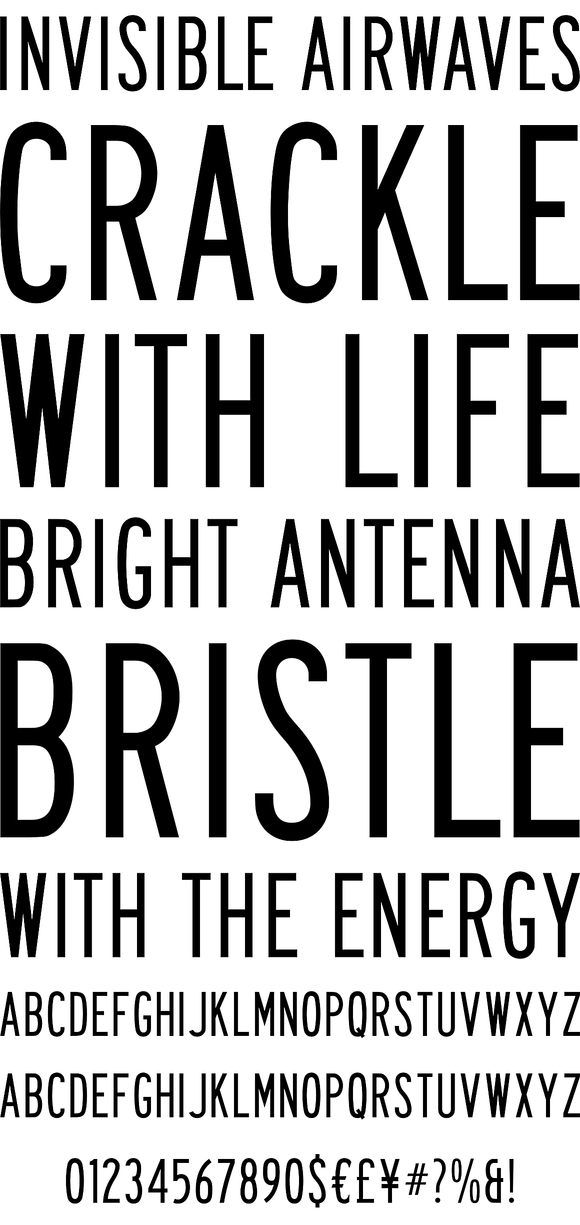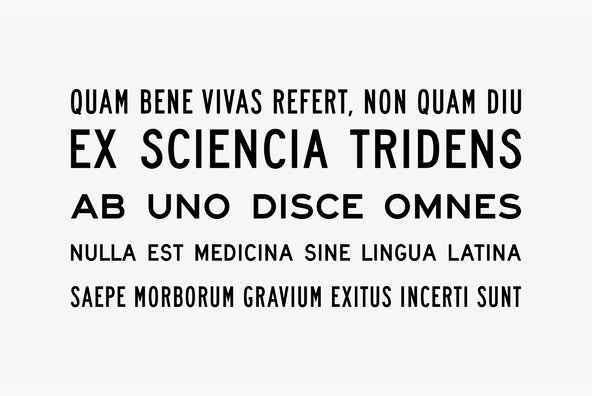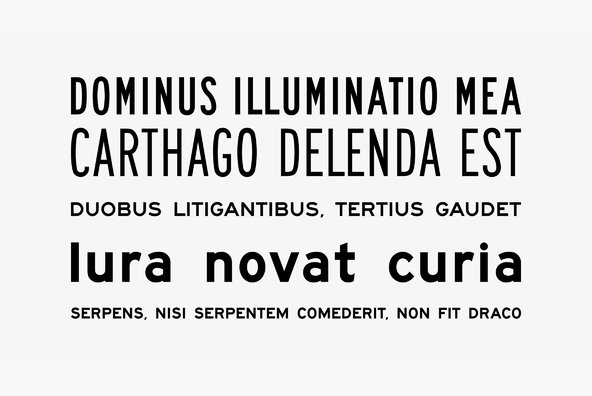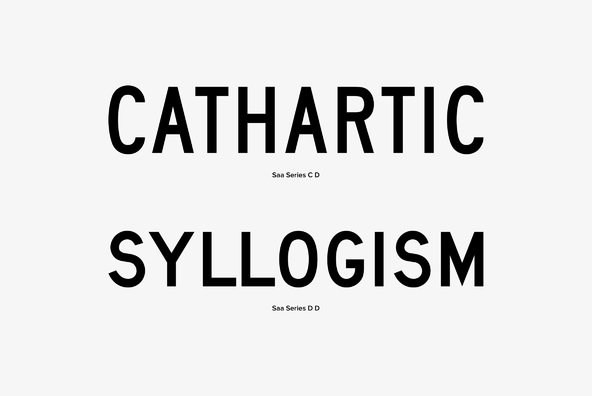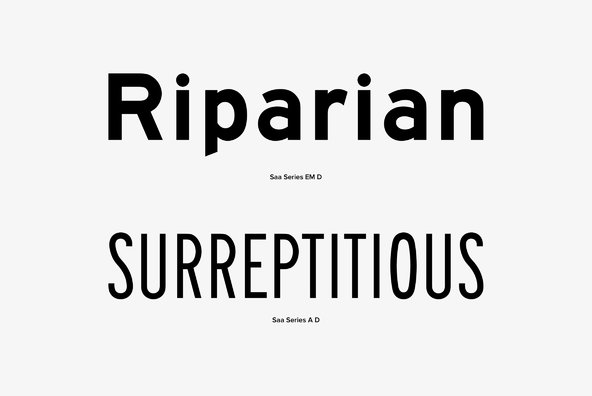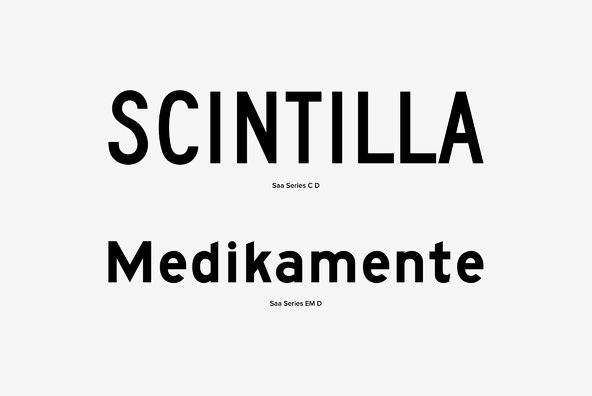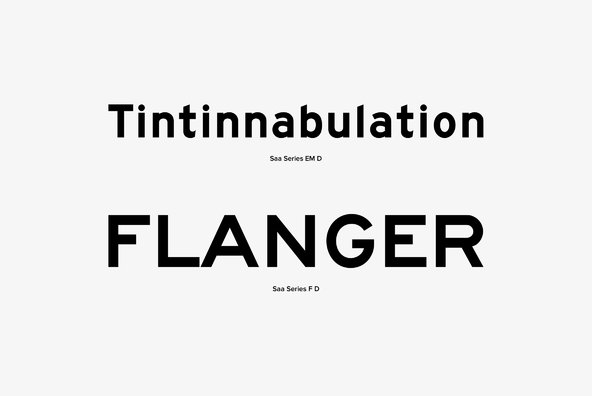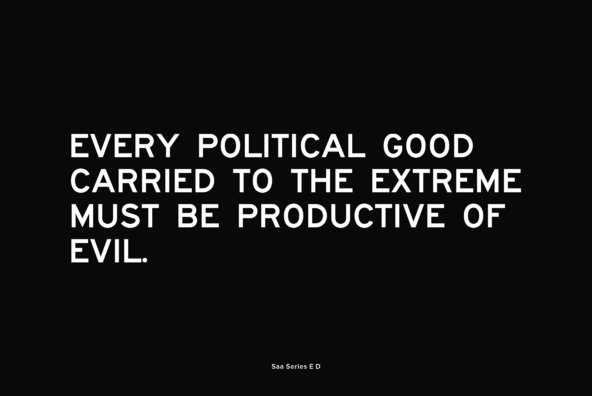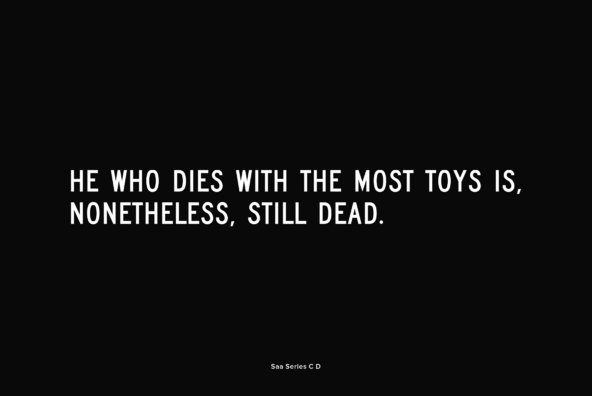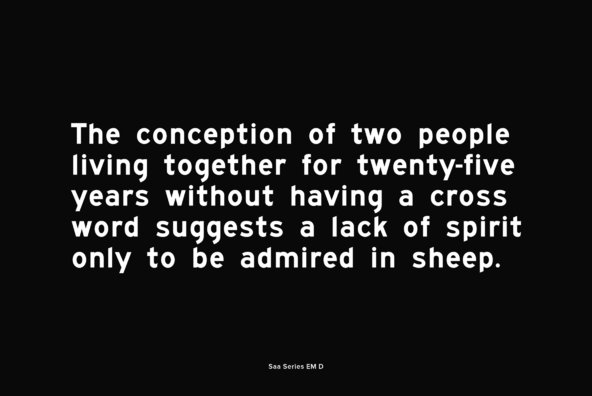
Massive letters on reflective green signs, offering direction and distance to everywhere--if you've driven a vehicle in the United States, you've seen SAA, which was designed in 1980 as a clone of the U.S. Federal Highway Administration (FHWA) series of highway signage fonts. Offering a more ovular take on its older cousin SNV, and becoming a counterpart to that typeface as the two basic typeface styles exhibited on most vehicle license plates in the United States and Canada, SAA was digitized and made commercially available by URW.
Like most Western highway signage fonts, SAA is a simple and clean sans, consisting primarily of all-caps options, although the 'SAA Series EM D' weight contains lowercase designs as well. Styles start tall and condensed, and move through to a wider option by the last weight